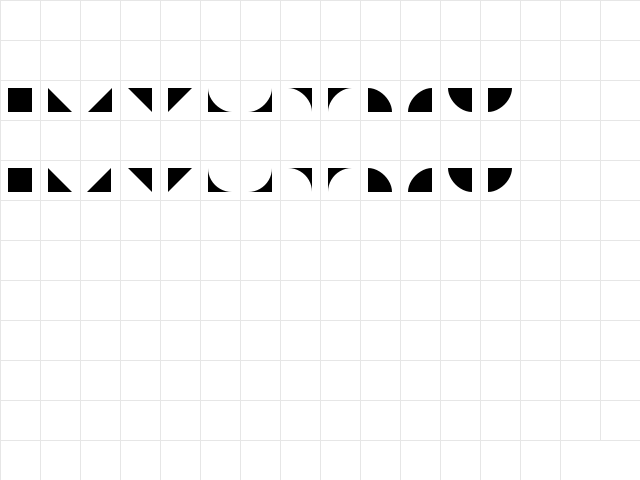
ANACOM Regular
Design Context for ANACOM Typeface
ANACOM takes a measured approach to typography — its balanced proportions and neutral character make it a reliable workhorse for both digital and print work.
Pro Tip: Use ANACOM in both headline and body roles to test its range before committing to a single application.